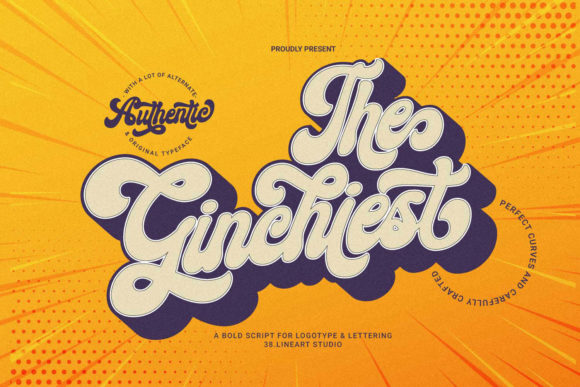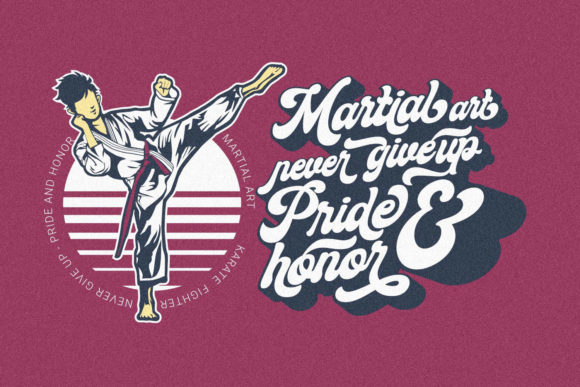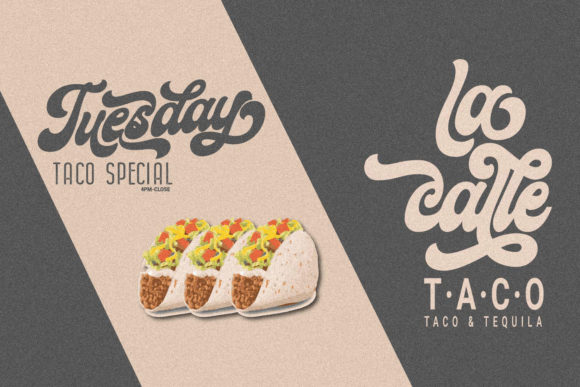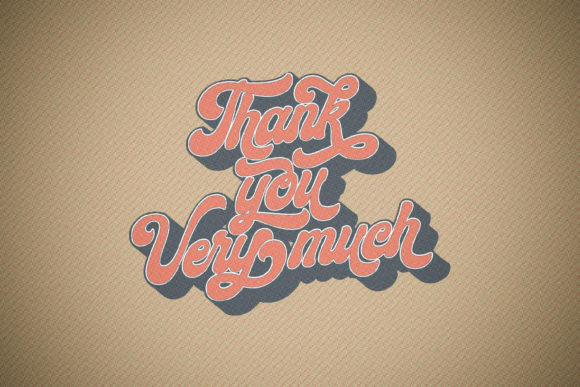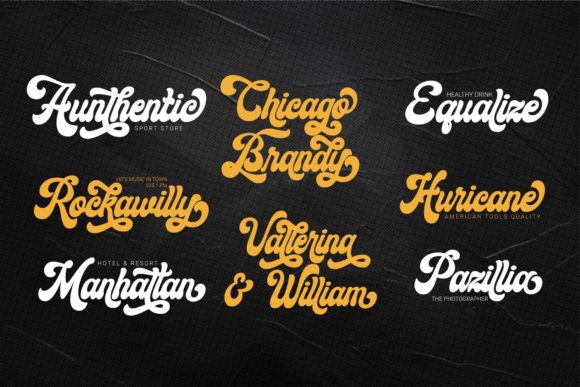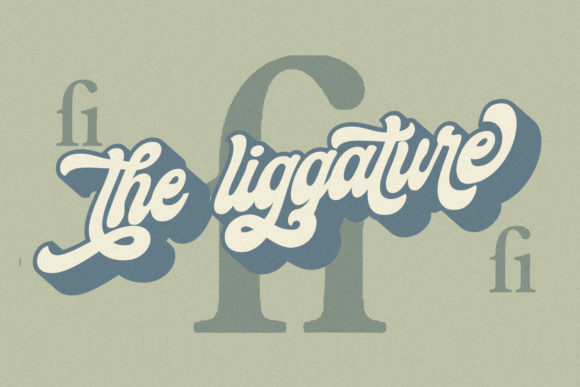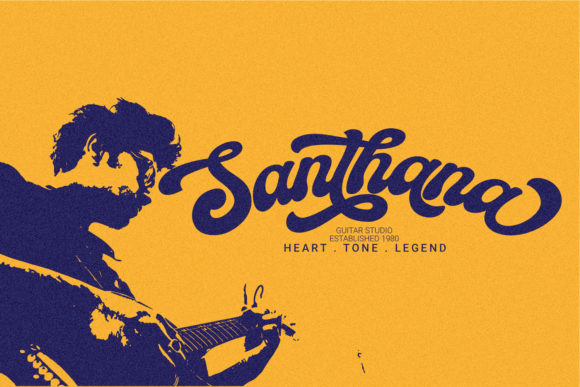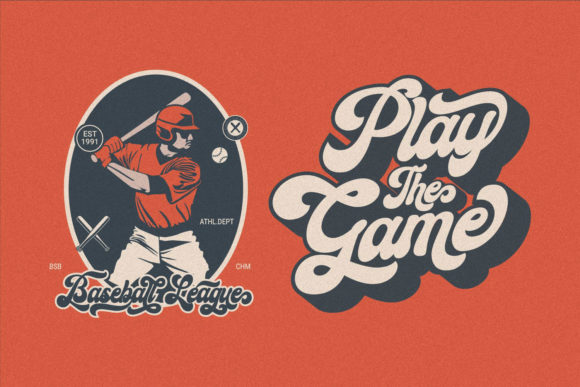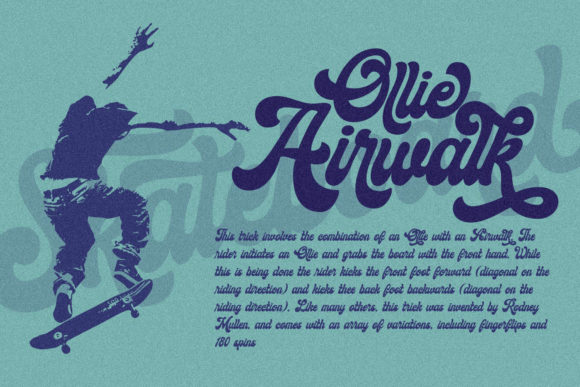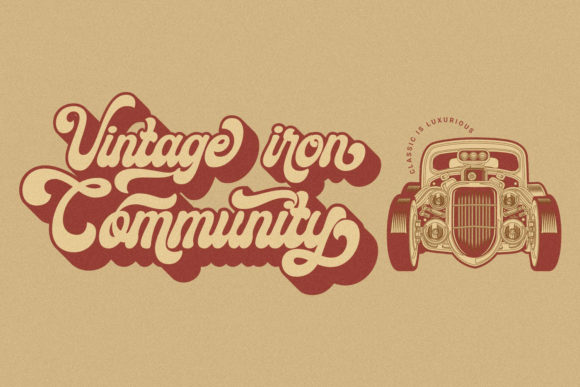
The Ginchiest Font
About The Ginchiest Font
Let’s get groovy! The Ginchiest is a strikingly bold and charming handwritten font. Get inspired by its retro feel, and turn any design project into an eye catcher!